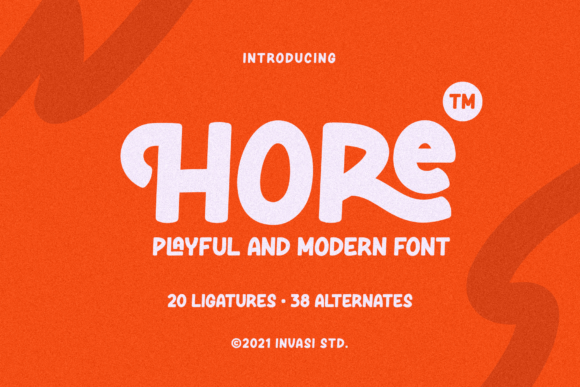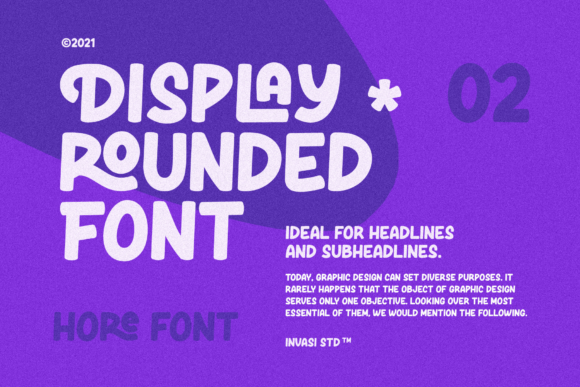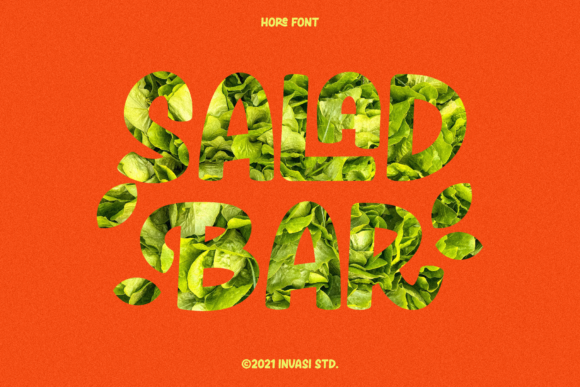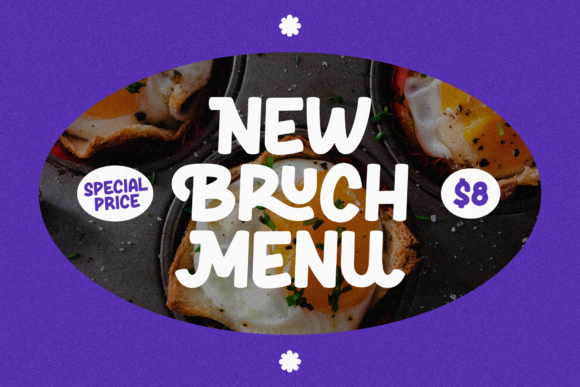
Hore Font: Playful Display Font for Modern Logo Design & Branding
About the Hore Font
We are excited to introduce Hore Font, a must-have typeface for any serious designer. Hore is a cool and vintage styled display font. This font is PUA encoded which means you can access all of the amazing glyphs and ligatures with ease!
Hore’s vintage styling makes it ideal for headlines, posters, and branding projects requiring a retro aesthetic. It excels in short, impactful text and would be a strong choice for logos or packaging designs where a bold statement is desired. However, its decorative nature makes it less suitable for body text or UI elements, where readability is paramount.
Pairing Hore with a clean sans-serif like Helvetica Neue for body copy creates a pleasing contrast, balancing the vintage boldness with modern clarity. Alternatively, a more delicate serif such as Garamond could add a touch of sophistication, softening Hore’s retro edge. Avoid pairing it with other highly decorative fonts to prevent visual clutter.
Hore projects a bold, confident personality with a touch of nostalgia. It’s best suited for brands aiming for a vintage-inspired, yet contemporary feel, suggesting authenticity and a strong visual identity.